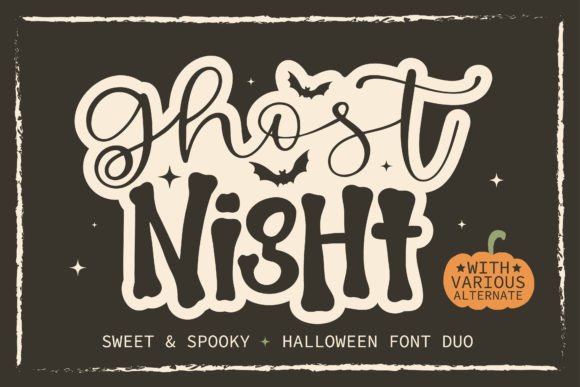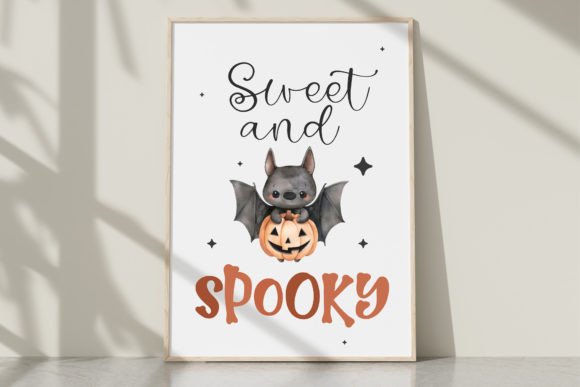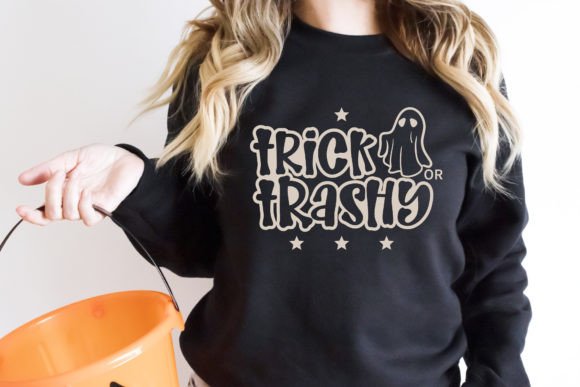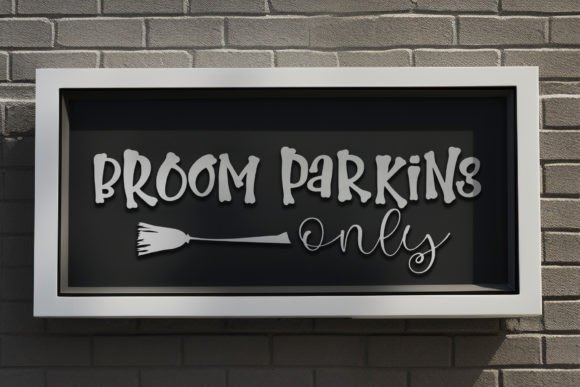
Ghost Night Font
About the Ghost Night Font
Meet Ghost Night Font, a stunning font that brings a touch of elegance and professionalism to any design. Ghost Night is a sweet and spooky Halloween font duo. It is perfect for any October project that requires a dramatic touch!
Ghost Night’s dramatic flair makes it ideal for headlines, posters, and Halloween-themed branding projects. It’s also well-suited for packaging design, particularly for products with a spooky or whimsical aesthetic. However, its decorative nature makes it less suitable for body text or UI elements where readability is paramount. Avoid using it for lengthy paragraphs.
Pairing Ghost Night with a clean sans-serif like Open Sans for body copy provides a strong contrast, balancing the font’s playful eeriness with clear readability. For a more sophisticated look, consider pairing it with a classic serif like Garamond for a touch of elegance.
The font projects a bold, playful, and slightly spooky personality, making it perfect for brands that want to convey a sense of fun with a touch of the macabre.
Ghost Night Font Usage Examples
Ghost Night Font Example